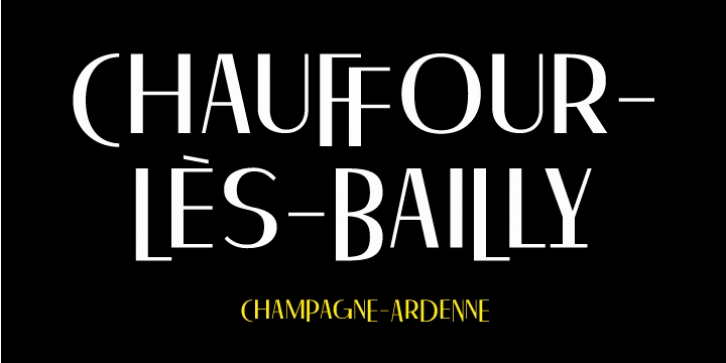
Le Francois downloadDesigner: Damien Gautier
Publisher: 205
Typical french typeface! Obviously classic...
This font contains 3 series of capitals (capitals ans 2 series of small capitals), 2 sets of figures (capitals and old style figures), ligatures and alternates letters.
And 6000 kerning pairs were generated for a neat spacing.